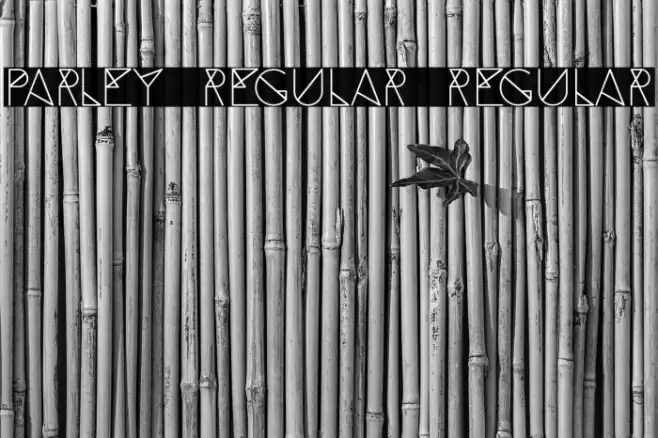
Parley Regular Font
Parley Regular Description
This font features a unique geometric design with sharp angles and clean lines, creating a modern and futuristic appearance. The characters are constructed with a combination of straight lines and triangular shapes, giving it a distinct and edgy look. The uppercase letters exhibit a consistent height and width, while the lowercase letters maintain a similar style with slight variations in size and form. The numbers and special characters are designed to match the overall aesthetic, ensuring a cohesive appearance across all glyphs. This font's minimalistic yet striking design makes it suitable for creative and contemporary projects.
A geometric and modern font with sharp angles and clean lines from Decorative fonts.
- Proposed Projects: Ideal for branding, logos, posters, and digital media projects that require a modern and edgy look.
- Use Case: Logos, Posters, Digital Media